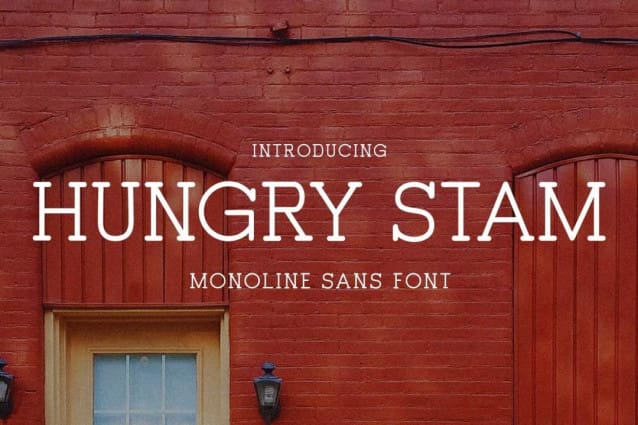
Hungry Stam Font
Hungry Stam Font, perfectly fit for branding, logo, wedding things, greeting cards, fashion, lookbook, marketing promotion, anytime you want to look fancy elegant but still casual.